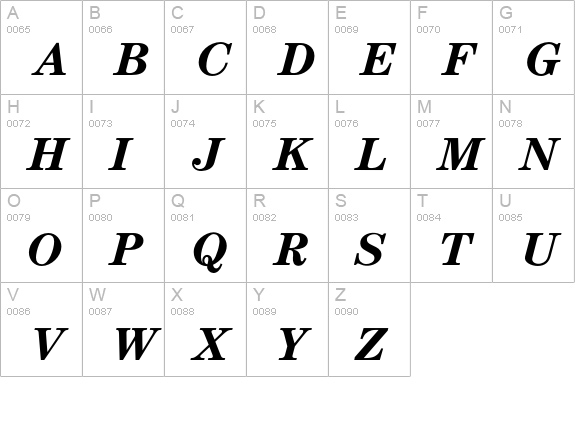
CenturyBoldItalic Font Details
CenturyBoldItalic is a modern and stylish font that exudes sophistication and elegance. Its bold and italicized design adds a touch of flair to any project, making it perfect for headings, logos, and branding materials. The sleek lines and curves of CenturyBoldItalic give it a unique and timeless appeal that is sure to make a statement. Best of all, CenturyBoldItalic is completely free to download at FontsMarket.com. This means you can easily add this stunning font to your collection without any cost. Whether you're a professional designer or a hobbyist looking to enhance your projects, CenturyBoldItalic is a versatile and eye-catching font that will elevate your work to the next level. Download it today and unleash your creativity with this exceptional typeface.